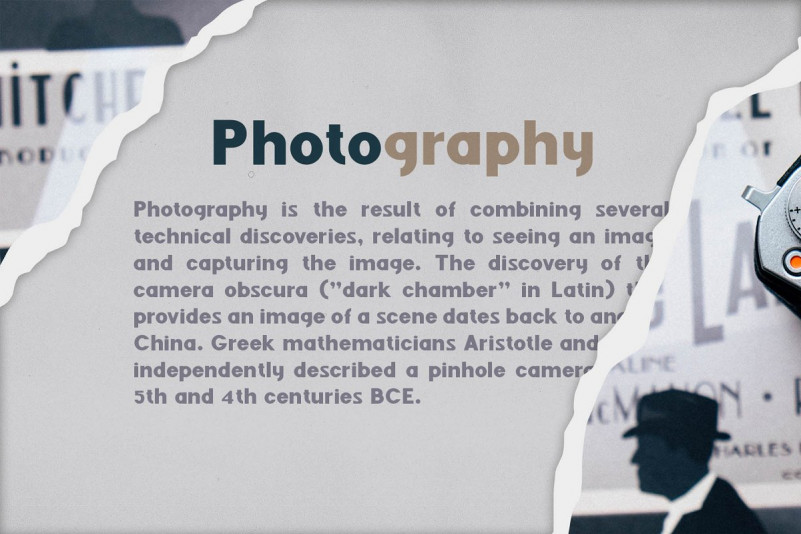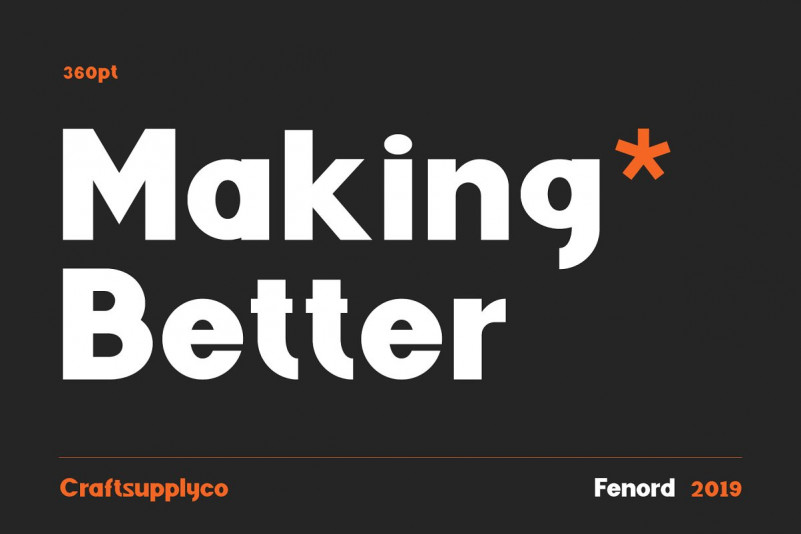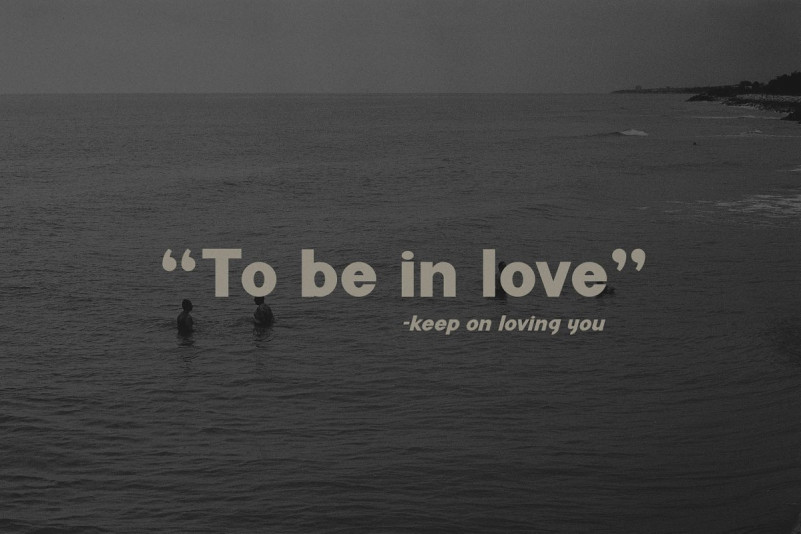
Fenord Sans Serif Font
Introducing the old school sans serif font family “Fenord Font” – a new sans serif font duo by Craft Supply Co.. Fenord Sans Serif Font was inspired by the European type specimen books, especially Fenord type standard. Delivering some glorious vibes of the solid values from the pioneers and keeping one eye on todays demands and technology, Fenord is made for high professional use.
It also suitable for art, modern envelope lettering or book design, happening style like handdrawn design or watercolor design theme, craft design, any DIY project, book title, wedding font, pop vintage design, or any purpose to make our art/design project look pretty and trendy.